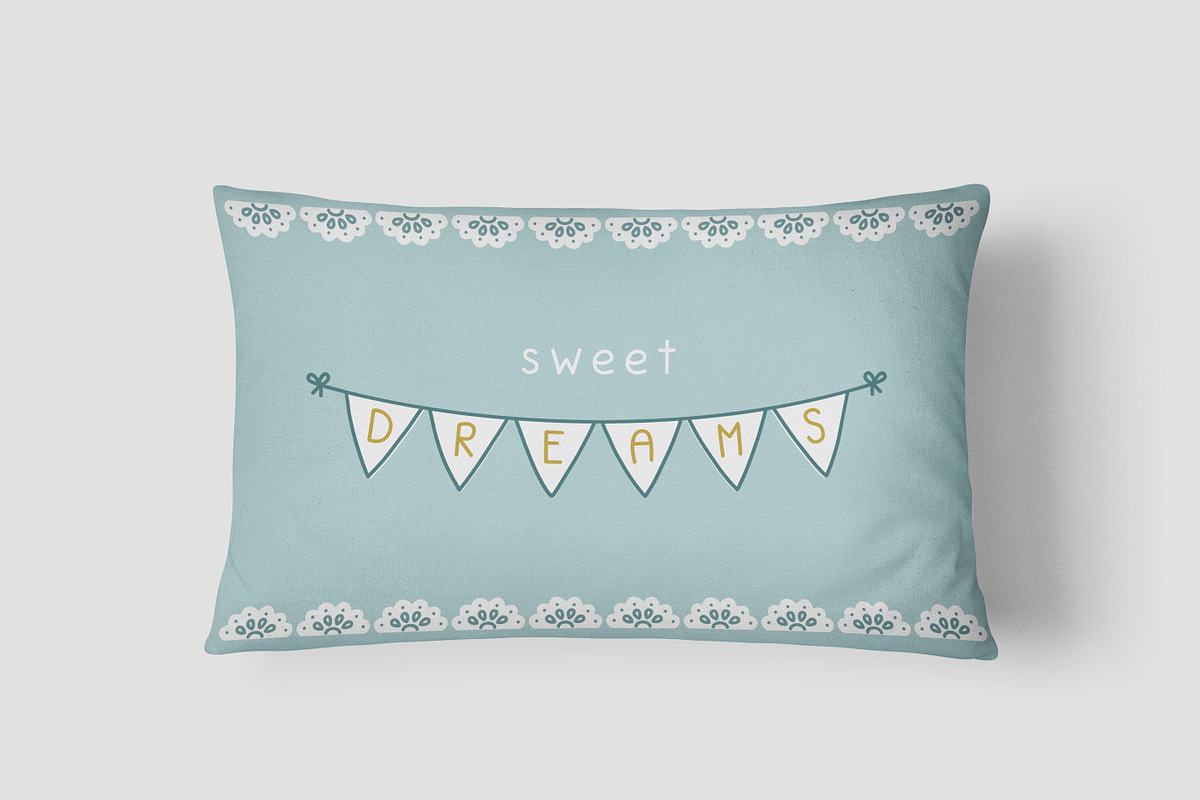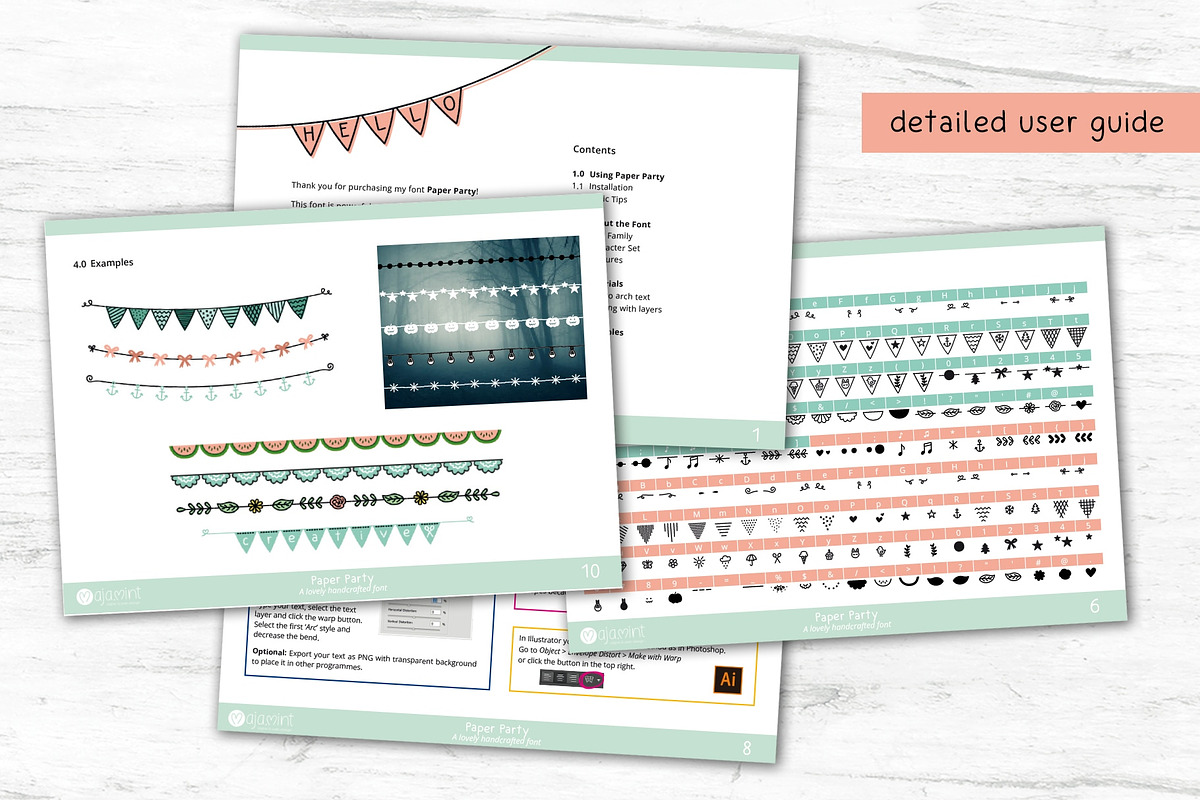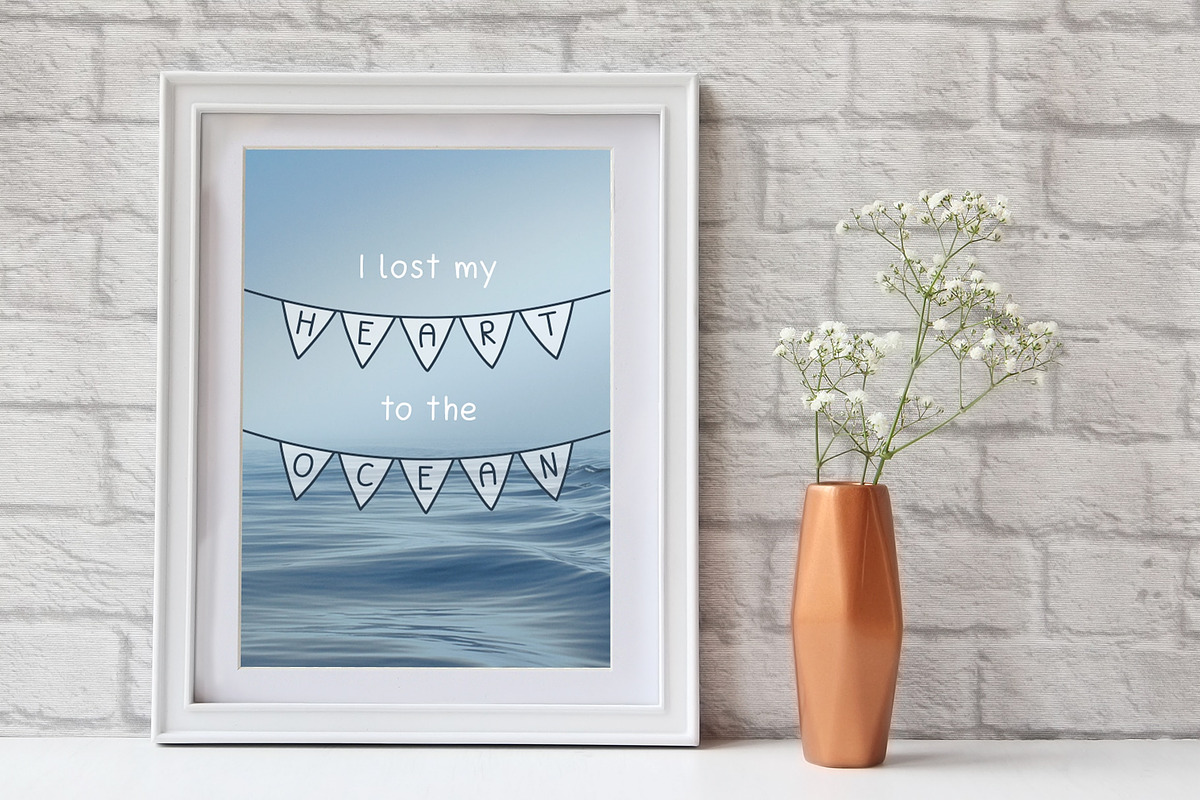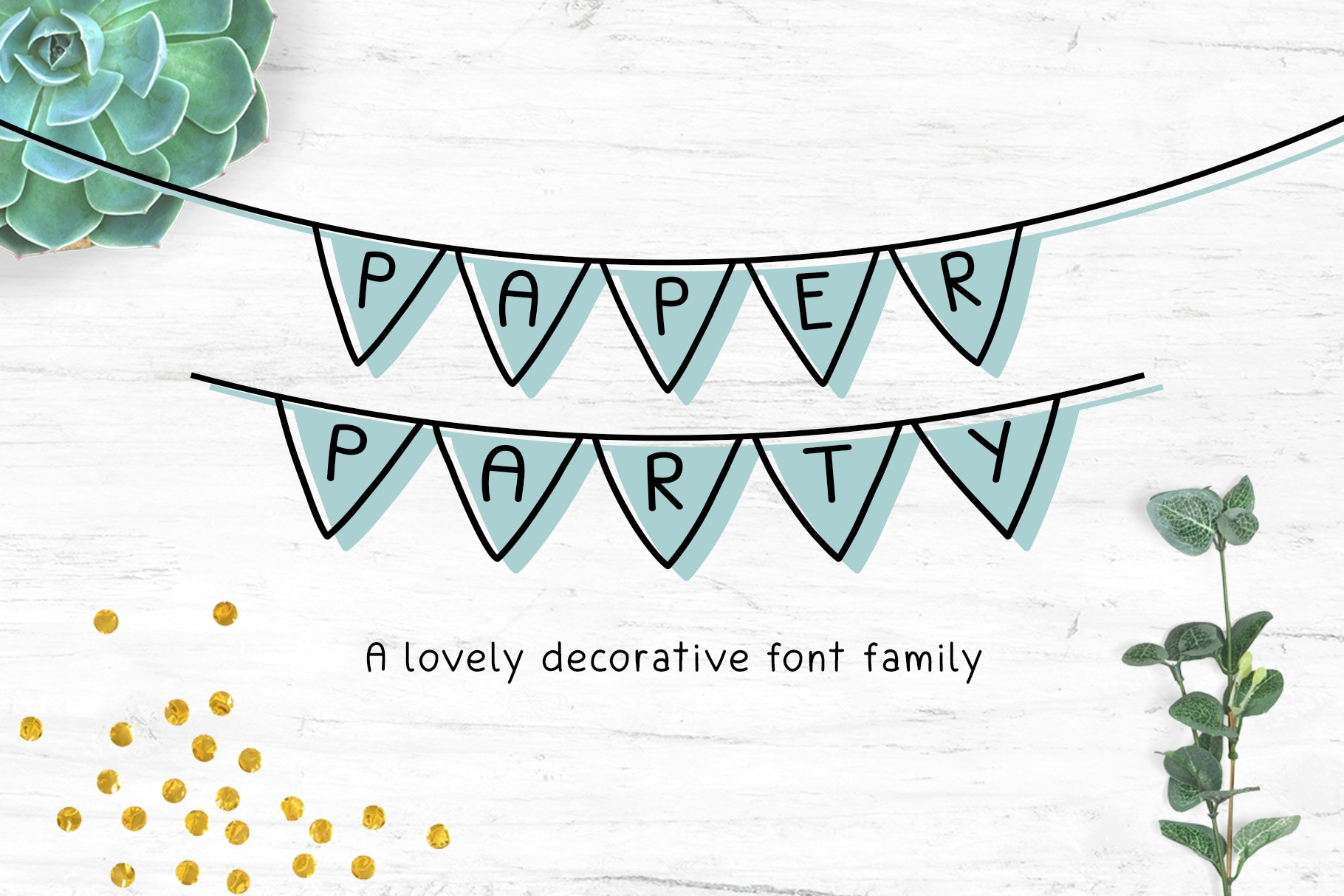
Paper Party – Font Family
Paper Party is a lovely decorative font family with love for detail.
The font includes many cute symbols to create all kinds of banners and pennant chains.